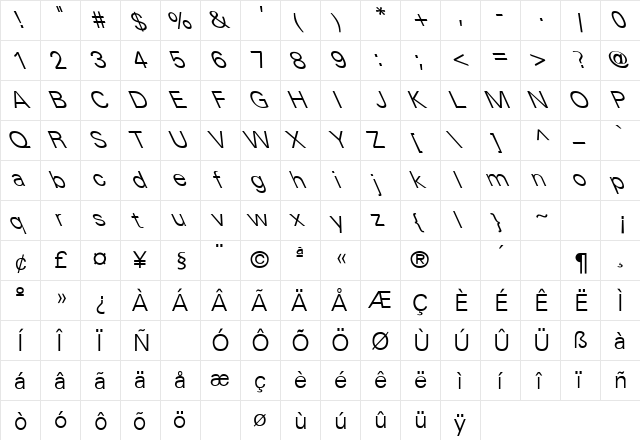
Univers-Light-Normal Leftis Regular Font Preview
Univers-Light-Normal Leftis Regular
Univers-Light-Normal Leftis Regular Font Details
Design Context for Univers-Light-Normal Leftis Typeface
Univers-Light-Normal Leftis takes a measured approach to typography — its balanced proportions and neutral character make it a reliable workhorse for both digital and print work. Its slender proportions lend an understated elegance to any composition.